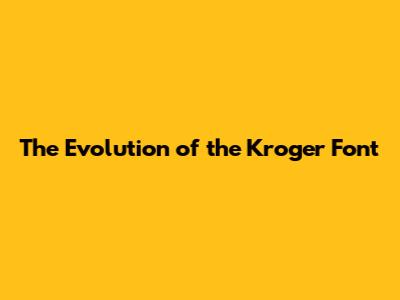
Hey guys, let's dive into something super interesting today: the Kroger font! You know, that distinctive typeface you see on all their signs, flyers, and their website? It's more than just letters; it's a massive part of their brand identity, and trust me, it's been carefully chosen. When we talk about branding, the font is one of those subtle yet powerful tools that companies use to communicate their personality and values. Kroger, being one of the largest supermarket chains in the United States, definitely knows this. They've been using variations of their brand font for ages, and it's become instantly recognizable. But what exactly is this font, and why is it so effective?
For a long time, Kroger utilized a custom typeface that was heavily inspired by existing fonts but tailored specifically for them. This custom approach allows for unique brand recognition, ensuring that no other company can replicate that exact look. The font we typically associate with Kroger has a certain friendly, approachable, and slightly modern feel. It's generally a sans-serif font, meaning it doesn't have those little decorative feet (serifs) at the end of the strokes. This often lends itself to a clean, legible, and contemporary aesthetic. Think about it: when you're rushing through the grocery store, trying to find that one item, you want the signs to be easy to read, right? A clean sans-serif font is perfect for that. It’s legible at various sizes, from small price tags to large overhead store signs. This legibility is absolutely crucial for a business like Kroger, where clear communication of products, prices, and promotions is paramount. They've likely invested a ton of research into ensuring their chosen typography enhances the shopping experience, rather than hindering it. It's all about making things seamless for us shoppers. So, the next time you're at Kroger, take a moment to appreciate the font – it’s a masterclass in branding! We'll break down its history, its characteristics, and why it works so well for this retail giant.
The Evolution of the Kroger Font
Let's rewind a bit and talk about how the Kroger font has evolved over the years. Brands, just like people, grow and change, and their visual identity needs to keep pace. Kroger is no exception. While the current font is very recognizable, it wasn't always this way. Think back to older Kroger stores or advertisements; you might notice a slightly different feel. Historically, companies often relied on commercially available fonts that fit their desired image. However, as branding became more sophisticated, especially in the latter half of the 20th century and into the 21st, custom typefaces became a key differentiator. Kroger has certainly embraced this strategy. They moved from what might have been more generic or less distinct typefaces to something specifically crafted for their brand. This often involves commissioning type designers to create unique fonts or heavily modifying existing ones to achieve a proprietary look and feel. The goal is always to create a visual language that is consistent across all platforms and touchpoints. For Kroger, this meant developing a font that could convey trustworthiness, value, and a sense of community – all core aspects of their brand promise. The transition wasn't just about aesthetics; it was a strategic business decision. A unique font helps build stronger brand recall and distinguishes Kroger from its competitors, which is vital in the fiercely competitive grocery market. Imagine if every supermarket used the same font; it would be a visual mess! Kroger's deliberate evolution of its typography reflects its commitment to maintaining a strong and relevant brand presence. It shows they understand that even the smallest details, like the shape of their letters, contribute to the overall customer experience and perception of the brand. This continuous refinement ensures that the Kroger brand remains fresh, modern, and appealing to new generations of shoppers while staying true to its heritage. It’s a delicate balance, but one they’ve managed pretty darn well over the decades, guys.
Characteristics of the Kroger Font
So, what makes the Kroger font so special and effective? Let's break down its key characteristics. As we touched on, it's predominantly a sans-serif typeface. This is a huge clue! Sans-serif fonts are known for their clean lines and simplicity. Think of fonts like Helvetica, Arial, or Open Sans – they lack the small decorative strokes found at the ends of letters in serif fonts (like Times New Roman). This design choice is deliberate for Kroger. It immediately signals modernity, efficiency, and clarity. In a retail environment where quick comprehension is key, a sans-serif font ensures that text is easily readable from a distance, on various digital screens, and even on small price tags. The strokes in the Kroger font are typically of uniform or near-uniform thickness, contributing to its clean and uncluttered appearance. This uniformity enhances legibility and gives the typeface a friendly, approachable, and somewhat geometric feel. It’s not overly stylized or ornate, which would detract from its primary function: clear communication. Furthermore, the letterforms themselves are often well-balanced and have open counters (the enclosed or partially enclosed negative space in letters like 'o' or 'a'). This openness further aids readability, preventing letters from looking cramped or smudged, especially at smaller sizes. The overall impression is one of reliability and straightforwardness. It suggests that Kroger is a no-nonsense, trustworthy place to shop. The character set is usually quite comprehensive, including a good range of weights (like light, regular, bold) and styles (like italics), allowing for versatility in design applications – from bold headlines to body text and even subtle call-outs. This versatility is crucial for a brand that needs to communicate a wide array of information, from weekly specials to corporate messages. They've likely spent a good amount of time refining specific characters to ensure they align perfectly with Kroger’s brand values. It's a font that feels stable, dependable, and accessible, mirroring the in-store experience Kroger aims to provide its customers. It’s not trying to be overly fancy; it's focused on being functional and representative of a trusted, everyday brand. That's the magic behind its design, guys!
Why This Font Works for Kroger
Now, let's tie it all together and understand why this particular Kroger font is such a perfect fit for the brand. In the world of marketing and branding, every single element needs to serve a purpose. For a company as massive as Kroger, with millions of customers interacting with its brand daily, the choice of typography is a strategic decision with far-reaching implications. The font needs to do a lot of heavy lifting: it needs to be legible, it needs to reflect the brand's personality, and it needs to be consistent across every single touchpoint. Firstly, legibility is paramount in the grocery sector. Whether it's a sign above the produce aisle, a discount advertised on a flyer, or the text on their mobile app, customers need to be able to read information quickly and accurately. The clean, sans-serif nature of Kroger's font ensures this. It cuts through the visual clutter of a busy store or website, making essential information easily accessible. Think about how frustrating it is when you can't read a price tag or a sale notice – Kroger avoids this by using a font designed for clarity. Secondly, the font conveys the right brand personality. Kroger positions itself as a reliable, value-driven, and community-focused supermarket. The font's straightforward, friendly, and modern aesthetic perfectly aligns with these attributes. It doesn't feel exclusive or overly premium, nor does it feel cheap or low-quality. It strikes a balance that communicates dependability and accessibility. It suggests that Kroger is a place for everyone, offering good quality and great value without unnecessary frills. This builds trust and familiarity with consumers. Thirdly, consistency is key to brand recognition. By using a custom or highly adapted font across all their communications – from the big